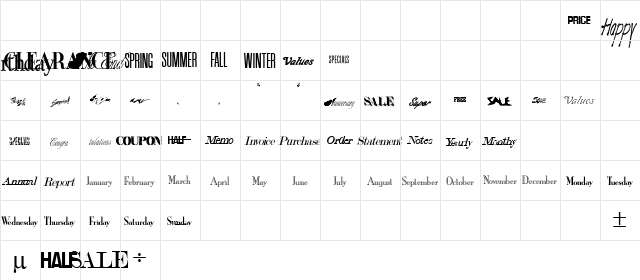
Readit! Regular
Design Context for Readit! Typeface
Readit! is a composed and adaptable typeface that performs quietly and consistently across a wide range of design contexts.